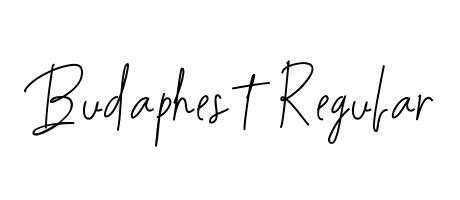
Budaphest
By Pollux of Geminorum
Budaphest Regular is a script typeface, characterized by its flowing, connected letters. Its style is casual yet elegant, with slightly uneven strokes giving it a hand-written feel. The letters are slightly condensed, creating a sense of rhythm and movement across the text. The overall aesthetic is modern and versatile, lending itself well to both formal and informal applications.